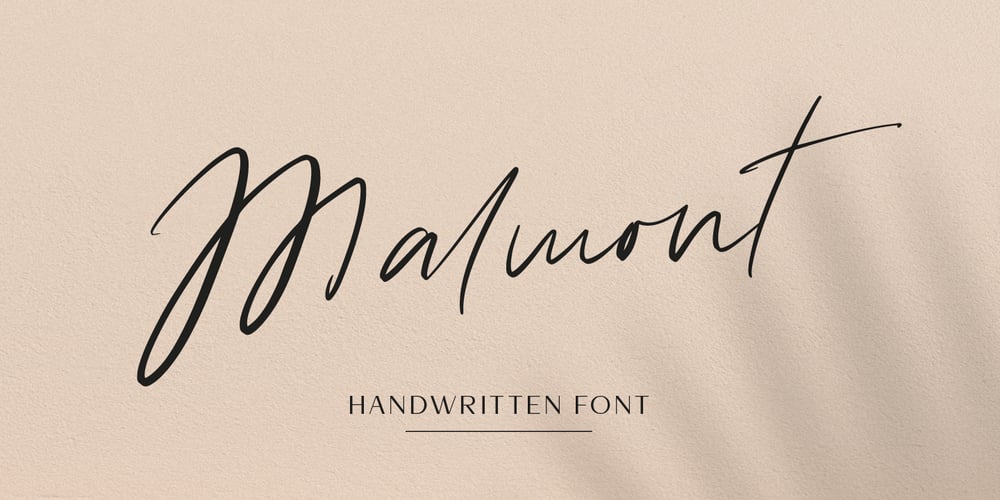
Malmont Font Family was designed by Pavel Larin and published by Larin Type Co. Malmont contains 1 styles and family package options. Malmont is an amazing handwritten font is light and elegant, and will emphasize your individuality in any project and will charm you with his signature. This font includes alternates and ligatures for lowercase. You can also use them to create a logo, branding, t-shirts, book covers, stationery, marketing, blogs, magazines, cosmetic, signboard and more. This font is easy to use has OpenType features.